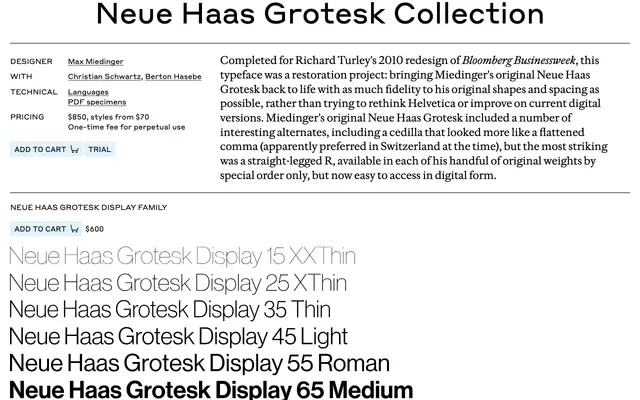
Neue Haas Grotesk
Commercial Type · Max Miedinger
Neue Haas Grotesk specimen from Commercial Type
A faithful restoration of Miedinger's original Neue Haas Grotesk in Display and Text optical sizes, drawn for Bloomberg Businessweek in 2010.
A faithful restoration of Max Miedinger's original Neue Haas Grotesk by Christian Schwartz and Berton Hasebe, completed for Richard Turley's 2010 redesign of Bloomberg Businessweek. Rather than reworking Helvetica, the brief was to bring Miedinger's metal shapes and spacing back to life. The family covers two optical sizes, Display from XXThin up to Black and Text from Roman to Bold, with matching italics and access to Miedinger's original alternates including the straight-legged R and a comma-like cedilla. Sits comfortably in editorial, identity and product work where you want Helvetica's voice closer to its first state.
Commercial Type describe Neue Haas Grotesk as Christian Schwartz and Berton Hasebe's restoration of Max Miedinger's original metal Neue Haas Grotesk, produced for Richard Turley's 2010 redesign of Bloomberg Businessweek, with Display and Text optical sizes faithful to Miedinger's shapes and spacing rather than later Helvetica revisions.